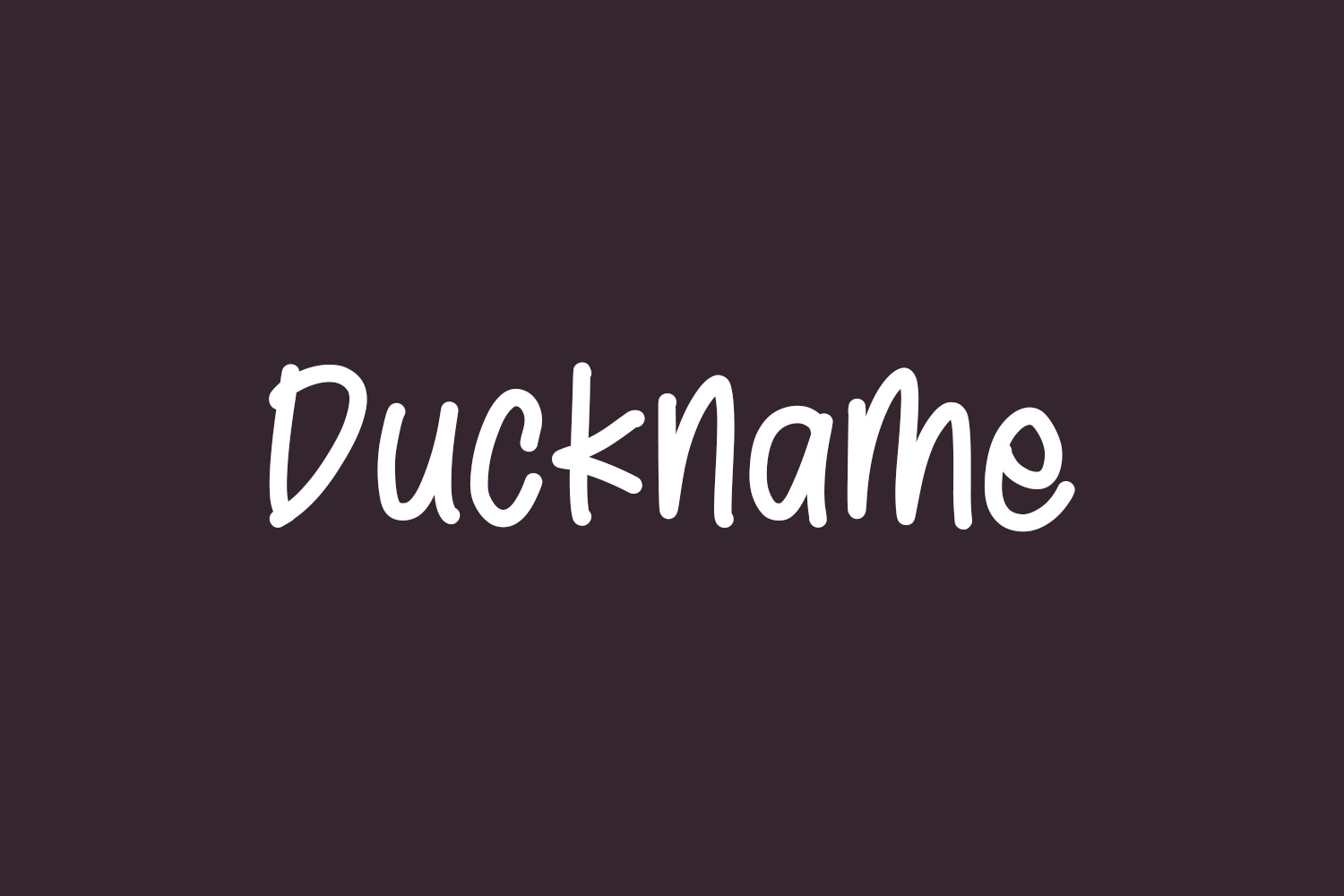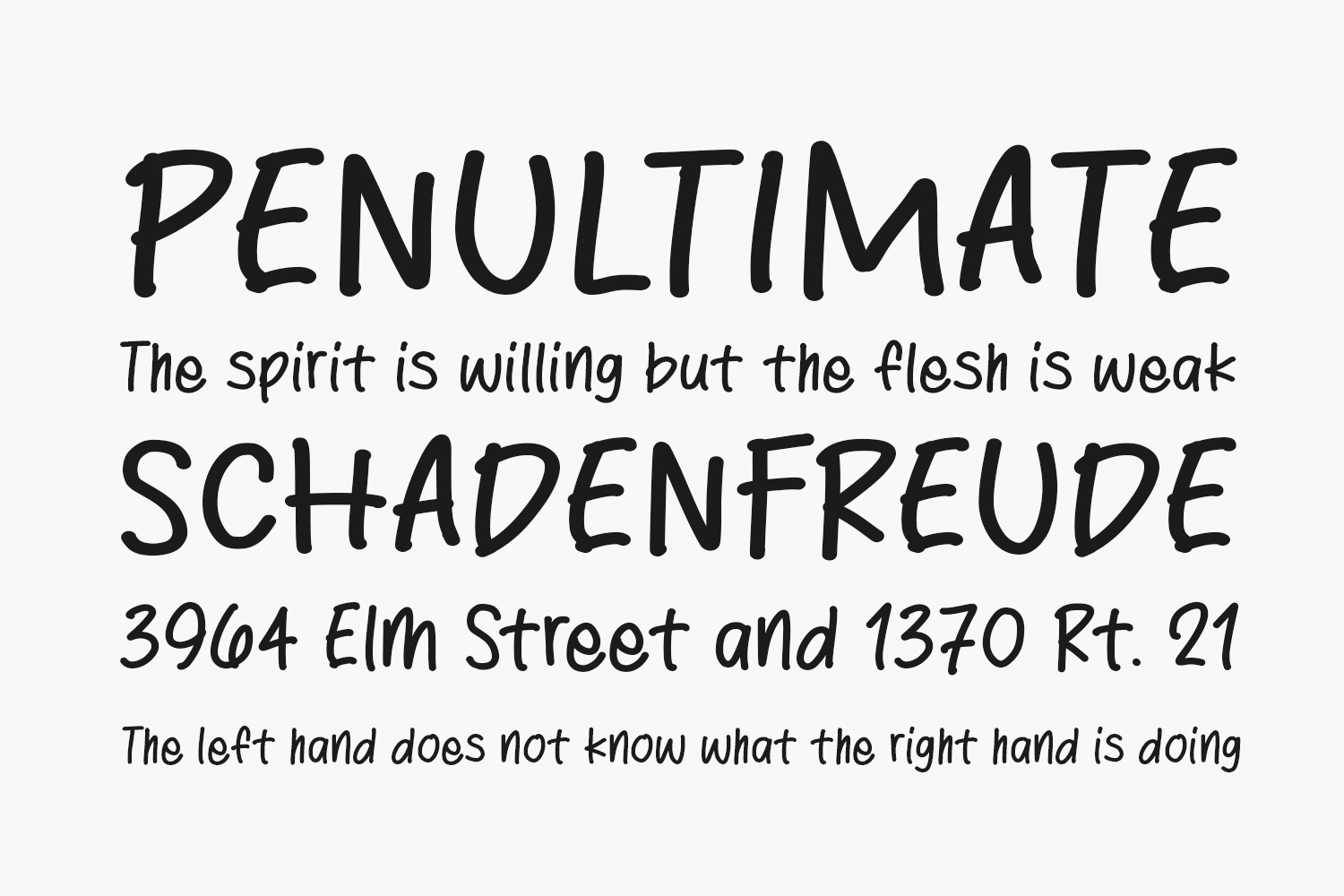
Meet Duckname Free Font, a contemporary handwritten font perfect for posters, logos, magazines, book covers, banners, and more. Elevate your designs with this remarkable font, creating captivating visuals. Its versatility allows seamless integration into various projects, making Duckname enhance and bring uniqueness to your creative ideas. Grab this amazing font now and see how it effortlessly makes your designs stand out. Download the font for free if you need it for personal or commercial use.